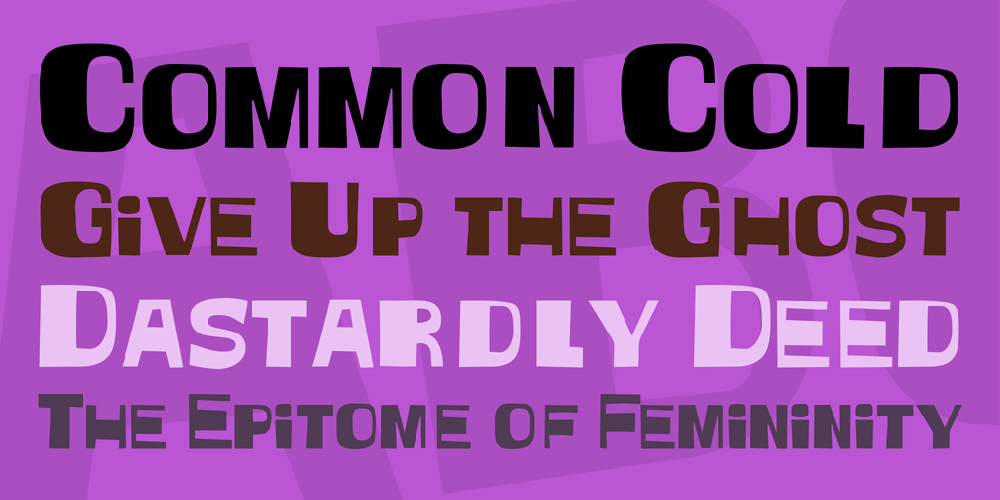
Keep on Truckin'
Keep on Truckin' is a playful display font with a distinctly retro feel, drawing on 1960s and 1970s style with a groovy, fun, and slightly wacky personality. Its exaggerated shapes give layouts an easygoing, expressive look that feels right at home in bold, attention-grabbing design.
With its strong vintage character, this single-style family is well suited to posters, branding, packaging, apparel graphics, and other decorative display work where you want a carefree throwback mood. It’s a natural fit for projects that lean nostalgic, quirky, or counterculture-inspired without losing visual impact.
Created by Brain Eaters Font Co, Keep on Truckin' offers one focused style built for statement-making type. If your design needs a groovy headline font with unmistakable period flavor, this one brings plenty of personality to the page.